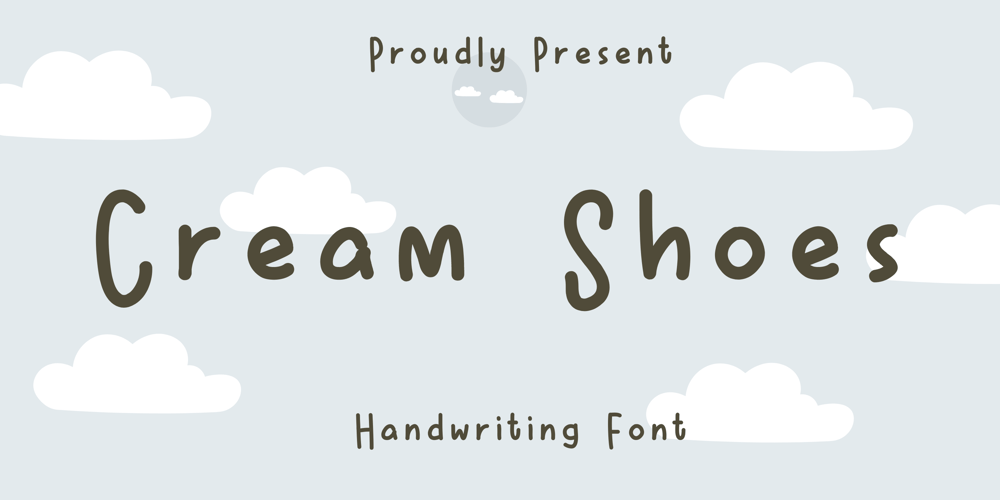
Cream Shoes Font Family was designed by Nur Aiysah Amalia and published by Aisyah. Cream Shoes contains 1 styles and family package options. Cream Shoes Handwritten is a charming and playful script font that mimics the appearance of casual handwriting. This font features smooth and rounded strokes with a consistent weight, giving it a relaxed and easygoing feel. The letters are slightly slanted to the right, adding a personal touch and a sense of movement. Cream Shoes Handwritten is perfect for creating fun and friendly designs such as greeting cards, social media posts, blog headers, and more. This font includes uppercase and lowercase letters, numerals, and punctuation.